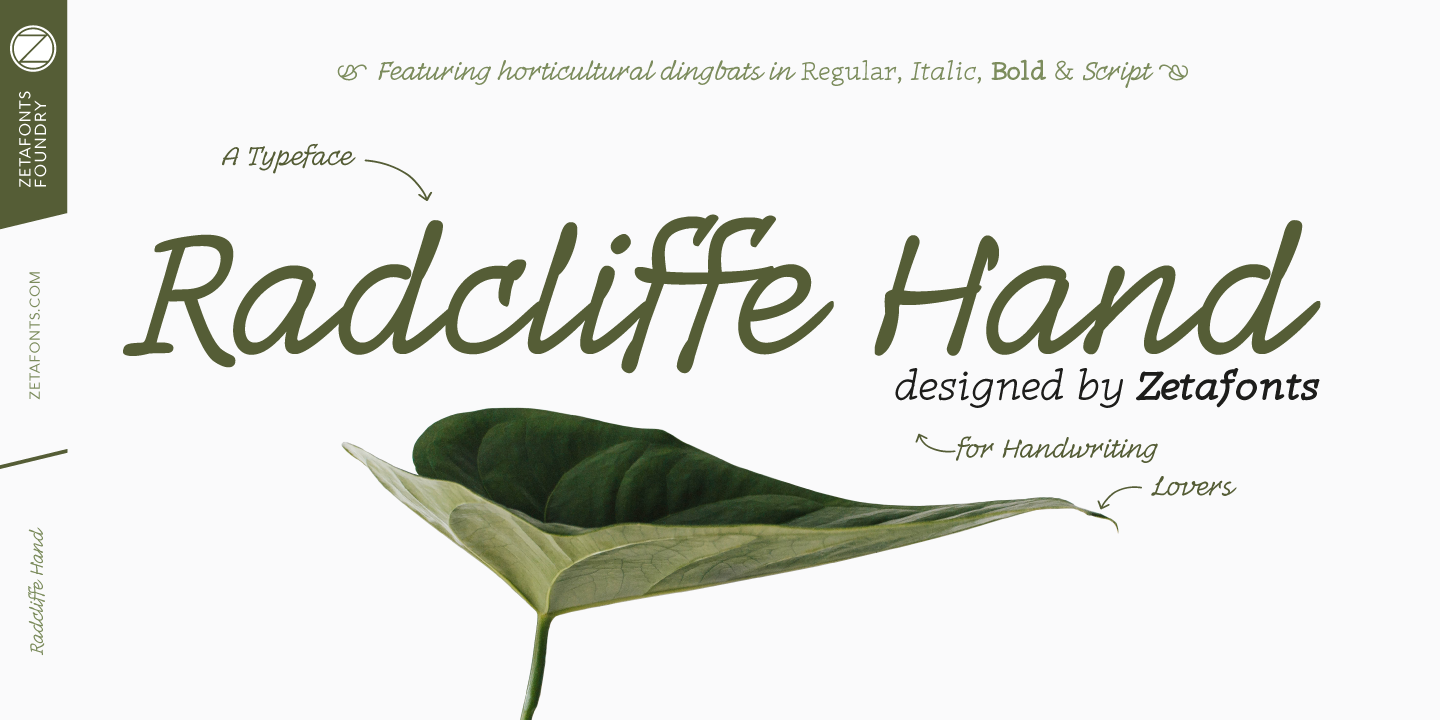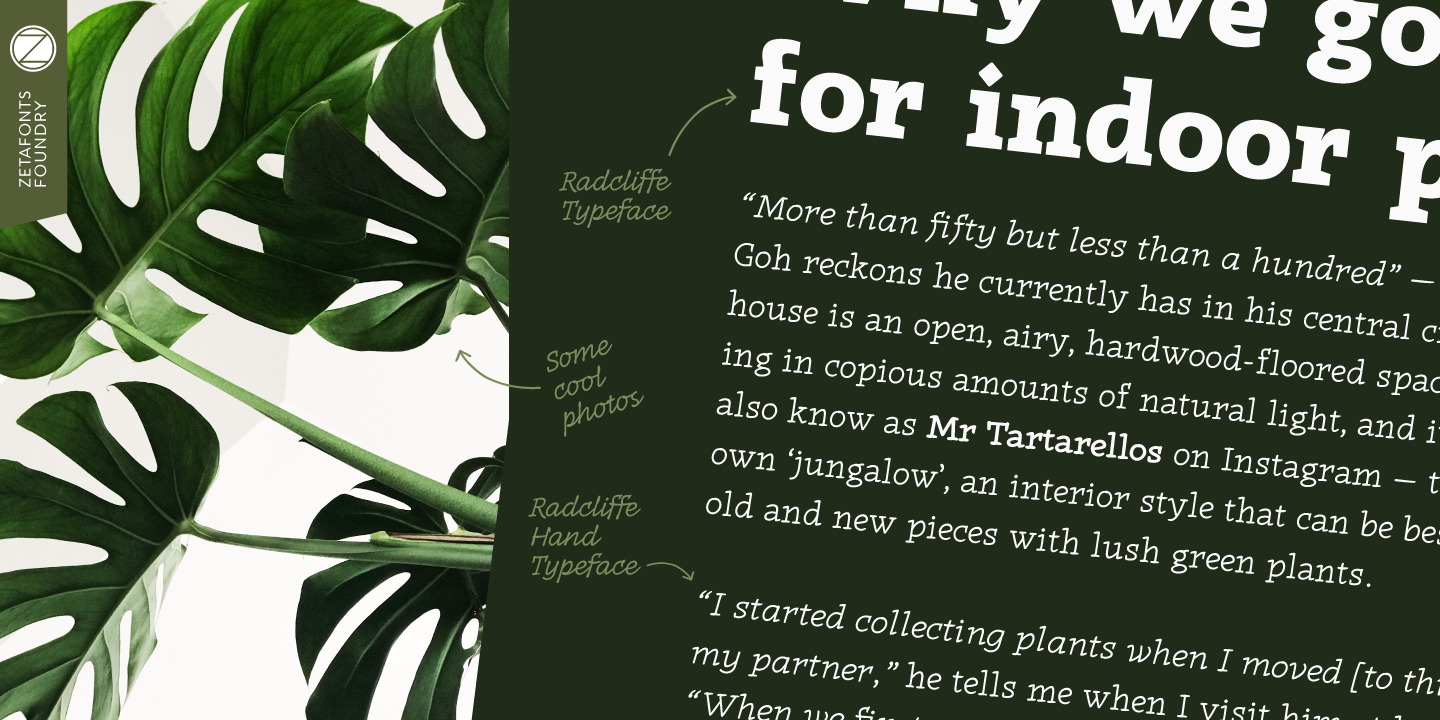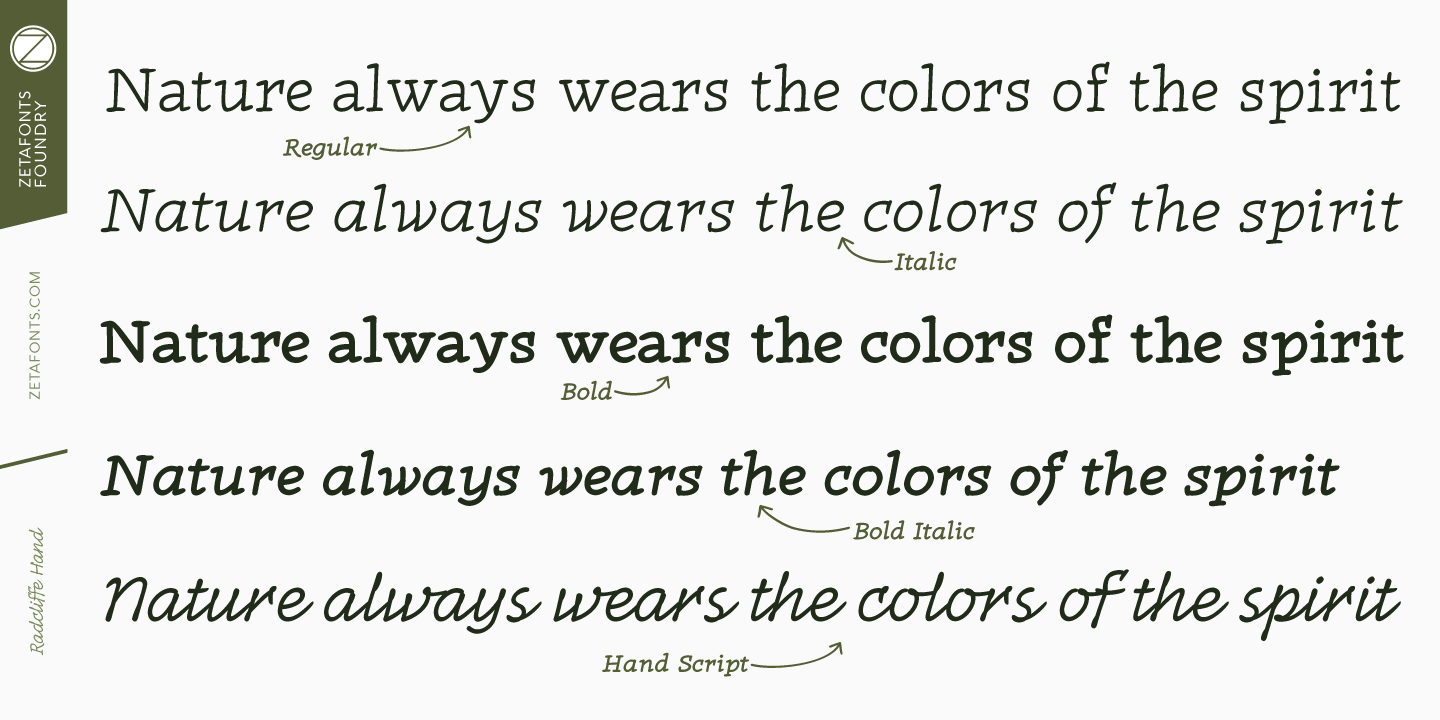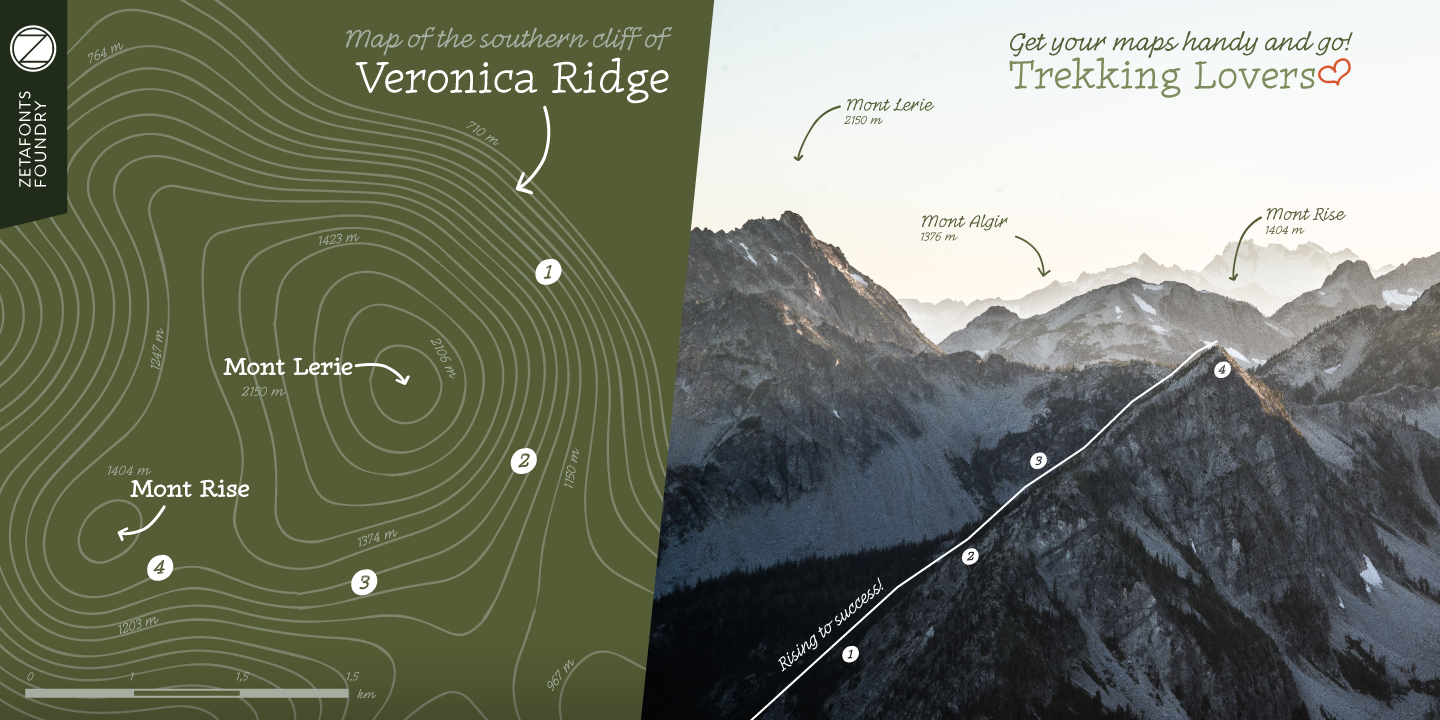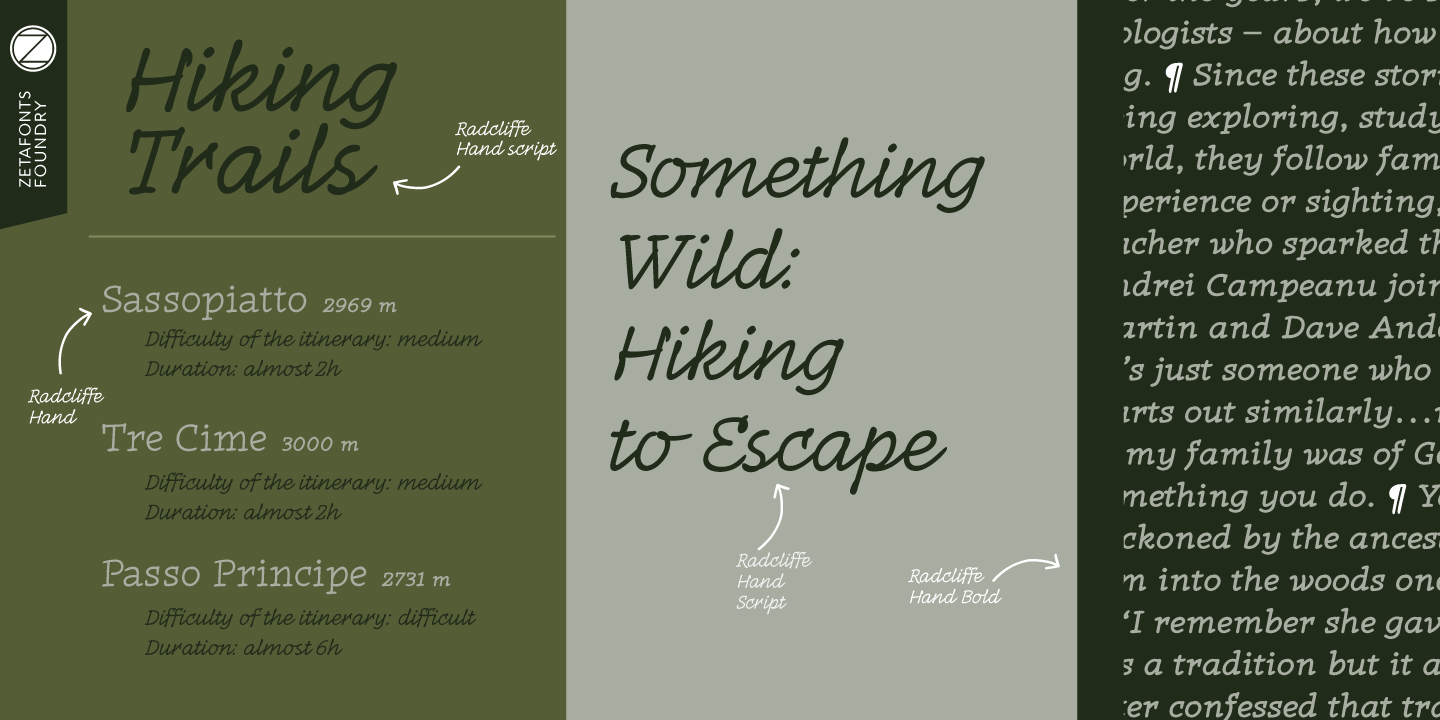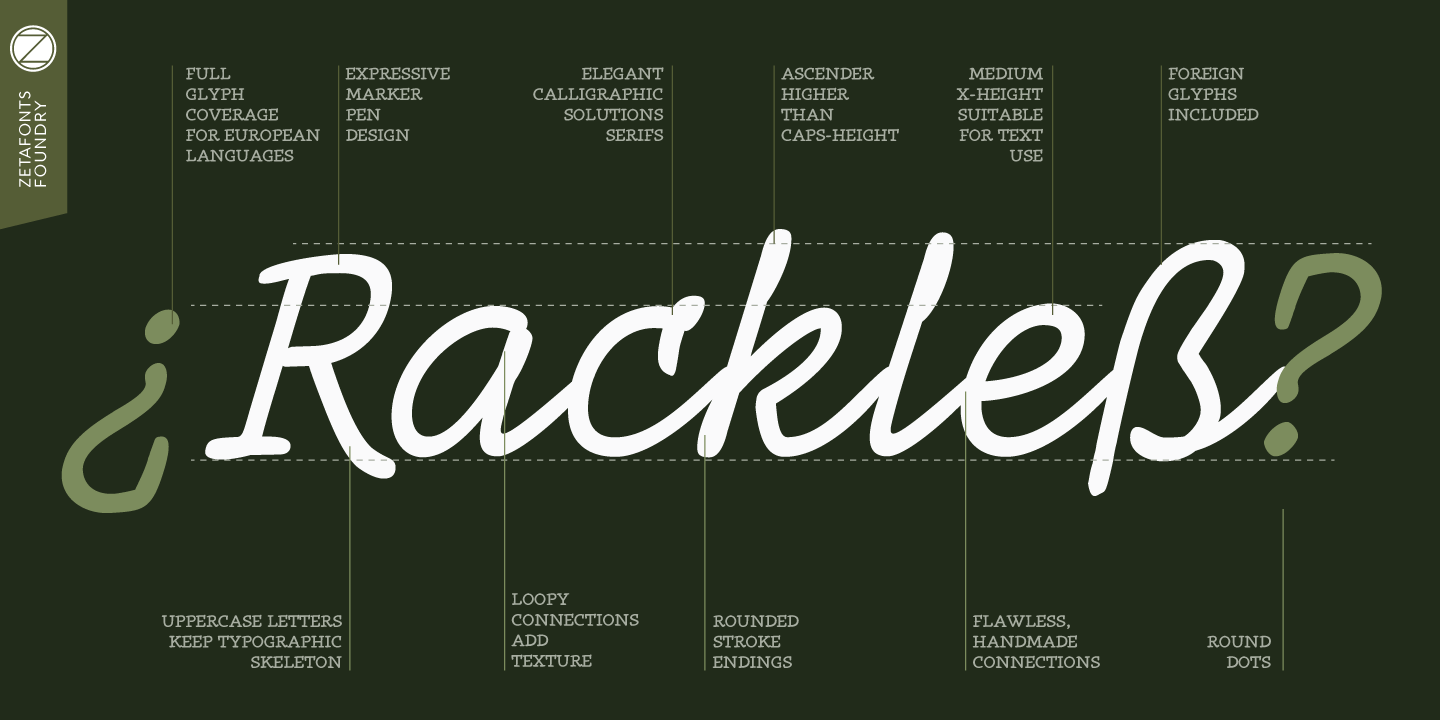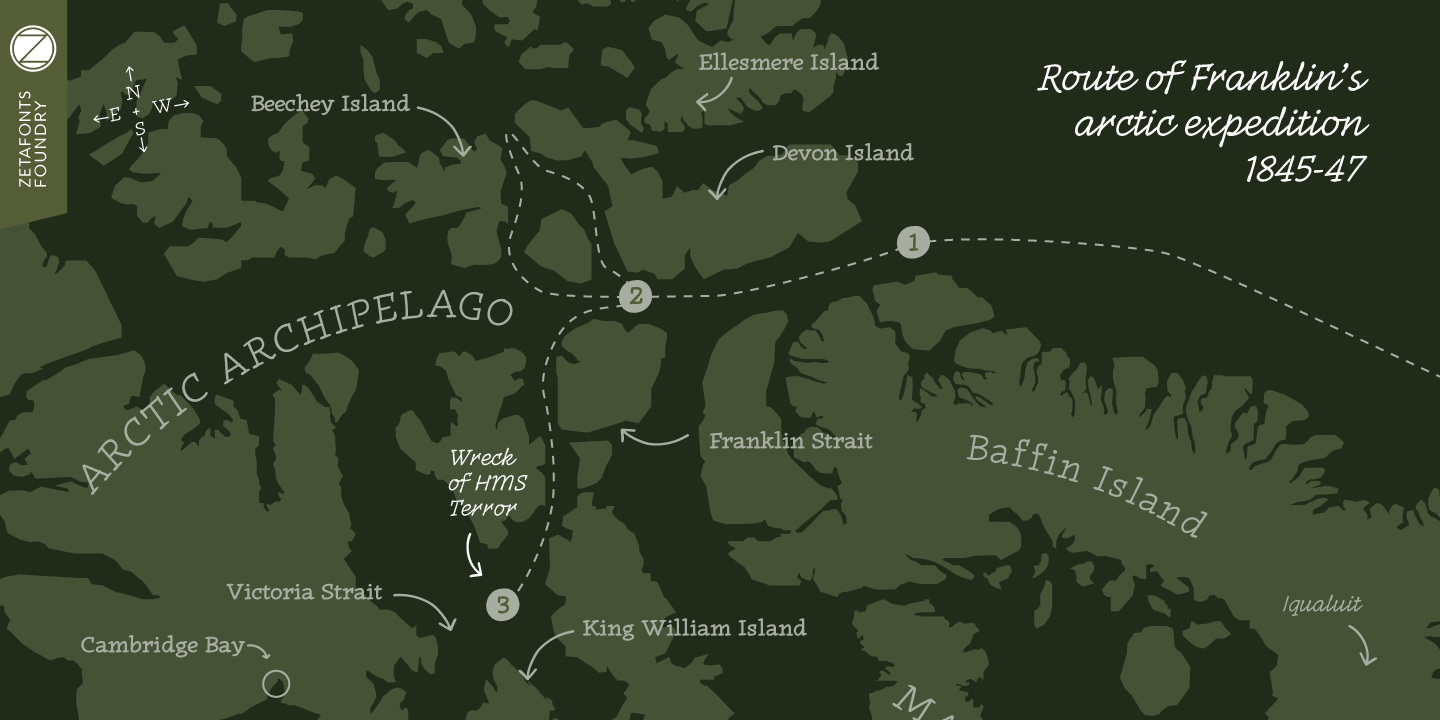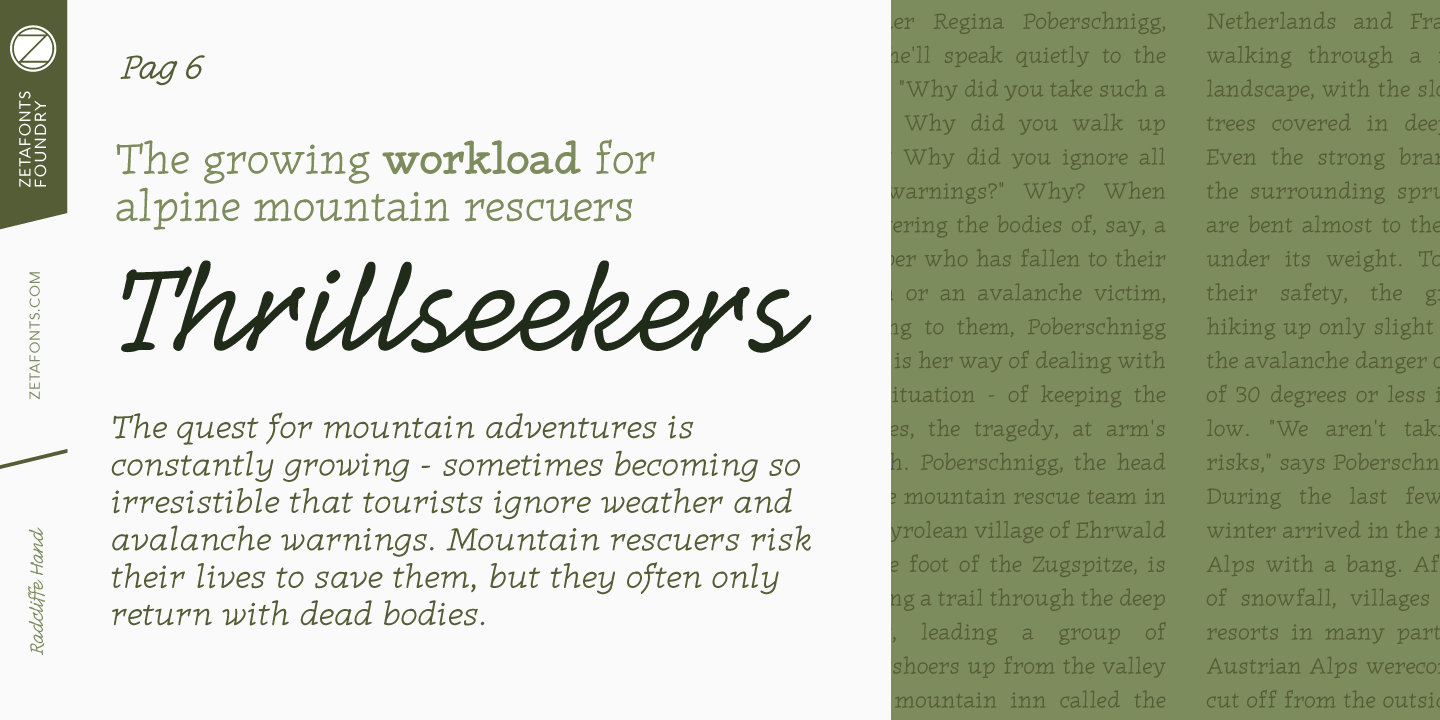
About the Radcliffe Hand Font
About Radcliffe Hand Font Family Radcliffe Hand PDF Specimen Radcliffe Hand Graphic Project on Behance Radcliffe Hand is a typeface family designed by Cosimo Lorenzo Pancini with the help of Giulia Ursenna Dorati, re-inventing our Radcliffe family as a handwritten typeface, Each glyph of the original typeface has been lovingly traced by hand, interpreting every design quality as a calligraphic quirk, thus allowing Radcliffe Hand to live in the middle ground between type and writing
Thanks to its wide & highly legible humanist skeleton, imbued with the dynamic qualities of handwriting, the typeface works both in display and text sizes, balancing expressivity and readability, and excelling in editorial and packaging uses where you want the text to keep display quality without becoming too hard to read
Radcliffe Hand has been developed in four weights plus an extra connected cursive version, Radcliffe Script, that can be used together with Radcliffe Hand or with the standard Radcliffe and Radcliffe Casual to add an extra touch of handwriting to your designs
All the Radcliffe Hand typefaces include over 400 glyphs with extended latin languages coverage, open type number positional forms and a set of twenty hand-drawn arrows that can be accessed through discretionary ligatures allowing easy creation of “fake handwritten” side notes to your text